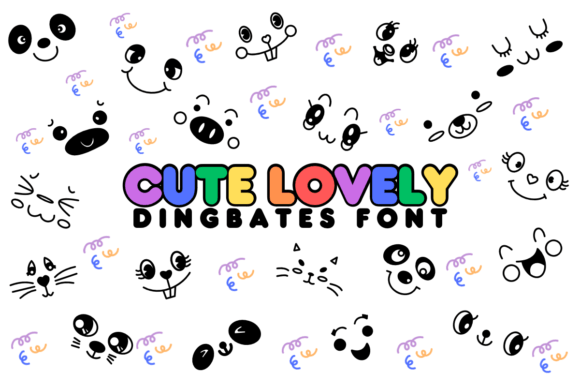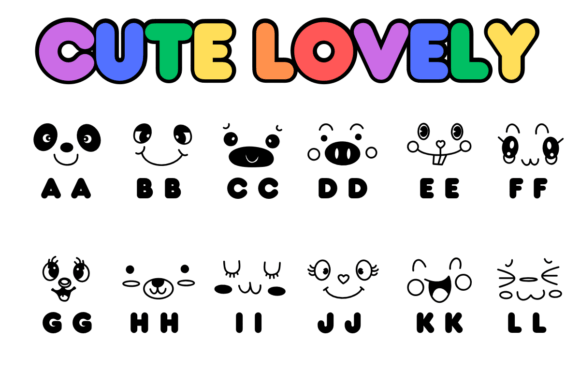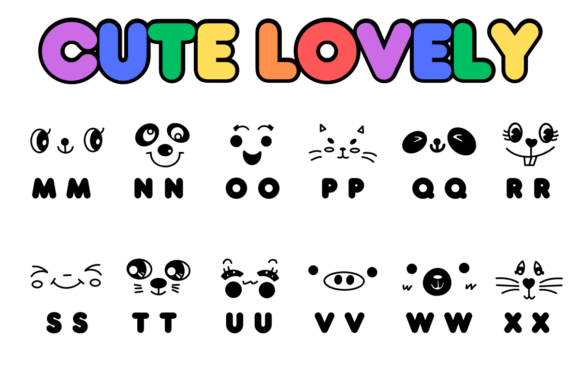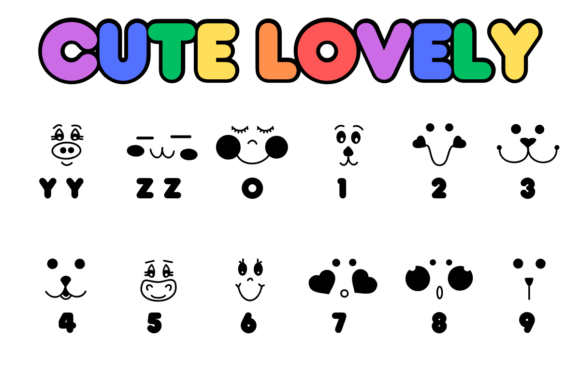
Cute Lovely Font
About the Cute Lovely Font
Let us introduce you to Cute Lovely Font, where timeless design meets modern craftsmanship. Cute lovely is a dingbats font with theme with a sketch style. This font can enhance your creative projects such as wedding invitations, DIY, crafts, decorations, logos, and many other creative ideas.
Its hand-drawn sketch style makes it ideal for projects requiring a whimsical, charming aesthetic. Consider using it for branding elements like logos for boutiques, cafes, or craft businesses, as well as on packaging for handmade goods or children’s products. It’s also well-suited for short headlines, social media graphics, and invitations where a playful touch is desired.
However, its low readability makes it unsuitable for body text or long paragraphs. Avoid using it in UI design or situations requiring significant amounts of text.
Pairing it with a clean sans-serif like Open Sans for body copy creates a pleasing contrast, balancing its informal charm with professional legibility. For a more sophisticated feel, consider a classic serif like Garamond. A simple geometric sans-serif could also work well, providing a modern counterpoint to the font’s hand-drawn feel.
Cute Lovely Font Usage Examples
Cute Lovely Font Example